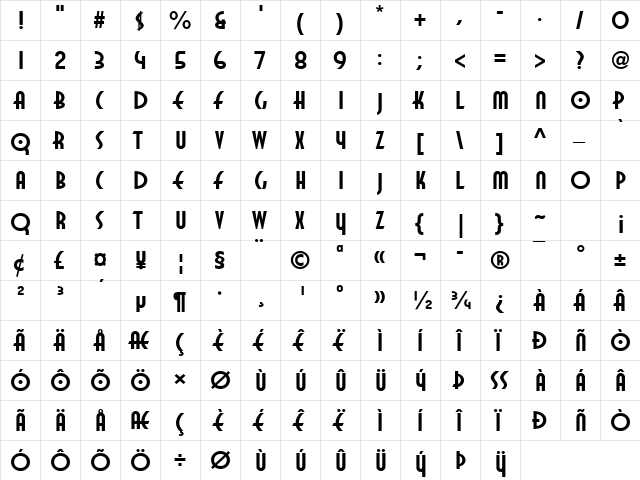
Twentieth Century Poster1 Roman Font Preview
Twentieth Century Poster1 Roman
Twentieth Century Poster1 Roman Font Details
| Foundry | Monotype Typography |
Design Context for Twentieth Century Poster1 Typeface
Twentieth Century Poster1 is a composed and adaptable typeface that performs quietly and consistently across a wide range of design contexts.